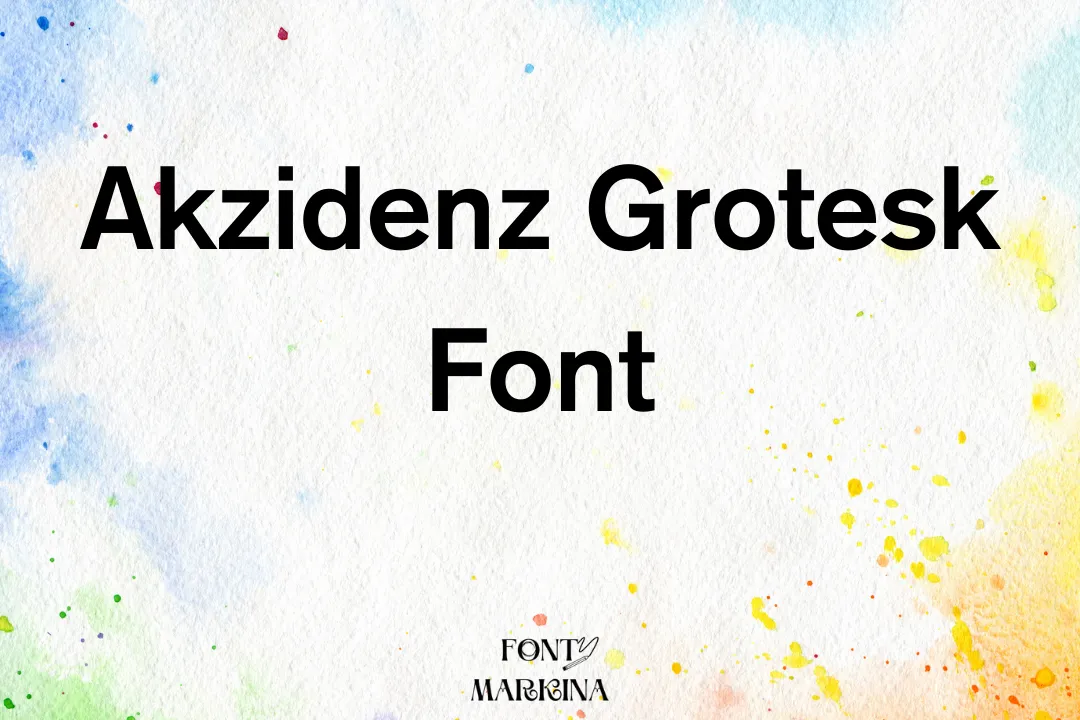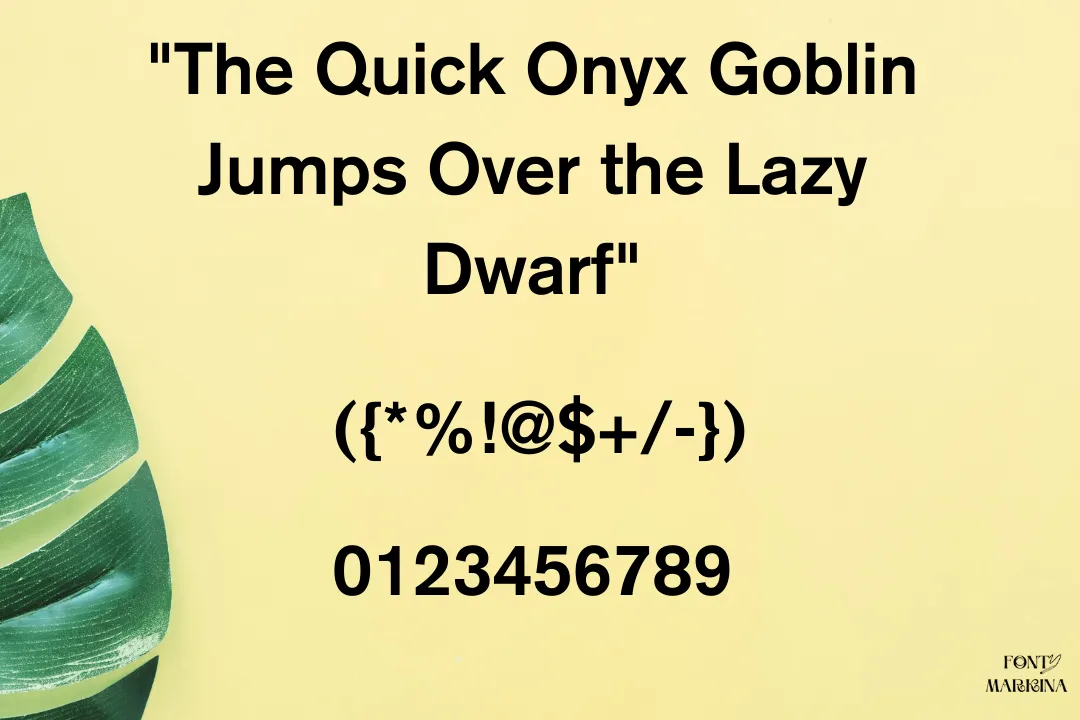
Akzidenz Grotesk Font
Akzidenz Grotesk Font was published for the first time in 1898 by a famous font foundry known by the name Berthlod. This family lies in the category of sans serif fonts.  In the start period, this typeface is used for business prints.
It is counted in different popular Webfont. You can also search this family from google fonts.  Another typeface that is Open Sans font has the same features as Akzidenz Grotesk Font.
One more best thing about this family is that you can also use this family with your Adobe fonts. Also, it is famous for its italic and bold functions in the market. Its text generator tool is very beneficial for all graphics projects.
Who Can Use Akzidenz Grotesk Font
This typeface is known for its classic and advanced uses, because of its different functions. You can use this family for a wide range of designs according to your own wish.
Not enough, you can also enjoy its more classic results by using Arial Font with the pairing of this family. It is mostly used for business prints, forms, tickets, and much more.
Many designers use this texture for their personal tasks. If you want to use this family for your official environment then it is beneficial for making reports, records, and other related tasks.
Similars to Akzidenz Grotesk Font
What type of font is Akzidenz Grotesk?
This font family falls in the category of Sans Serif font family. And this family was developed by Berthlod Foundry.
Is Akzidenz Grotesk an Adobe font?
Yes, absolutely this texture is an Adobe Fonts. You can also use it with your Adobe Fonts.
What font is similar to Akzidenz Grotesk?
Avenir font is much closest to this font family. Both textures have the same features and styles.